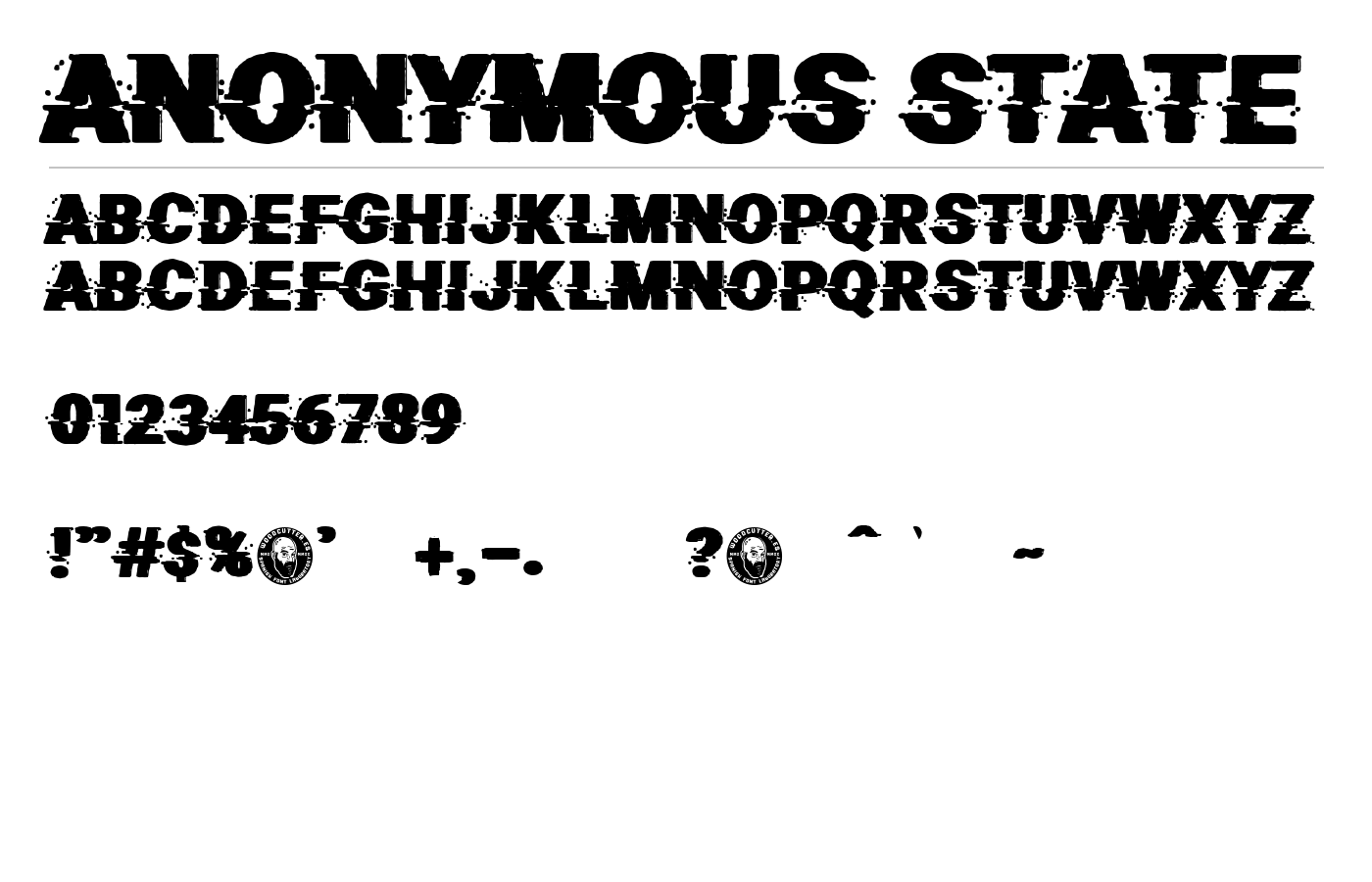
Anonymous State is a bold, distressed slab serif font with a strong, rugged character. Its thick strokes and uneven, worn texture give it a vintage, industrial feel that works well for impactful headlines, posters, and branding that aims to evoke a sense of toughness or rebellion. This font is ideal for designs seeking a gritty, authentic vibe with a gritty, attention-grabbing presence.
Anonymous State Font
About Anonymous State Font